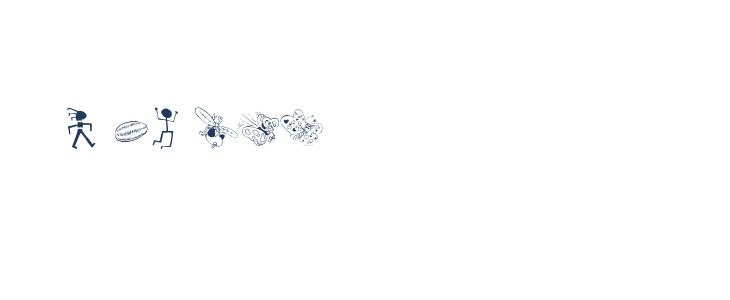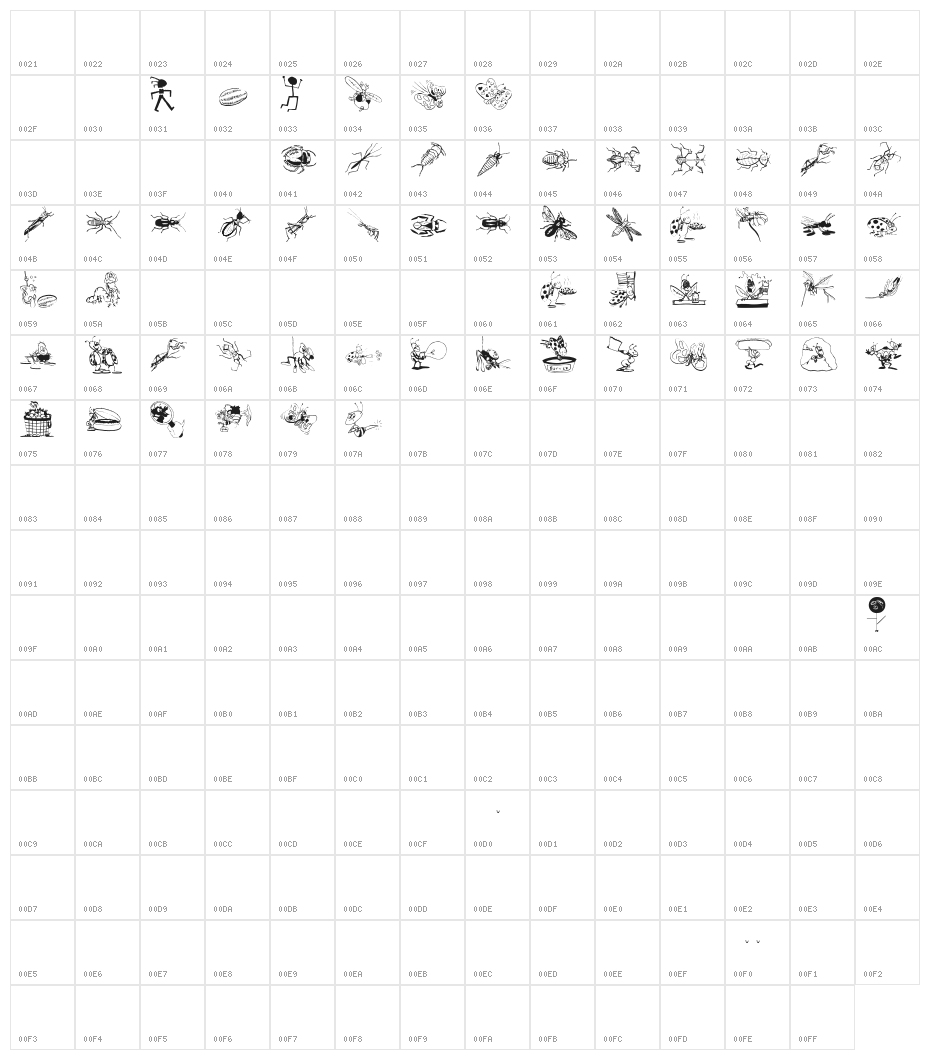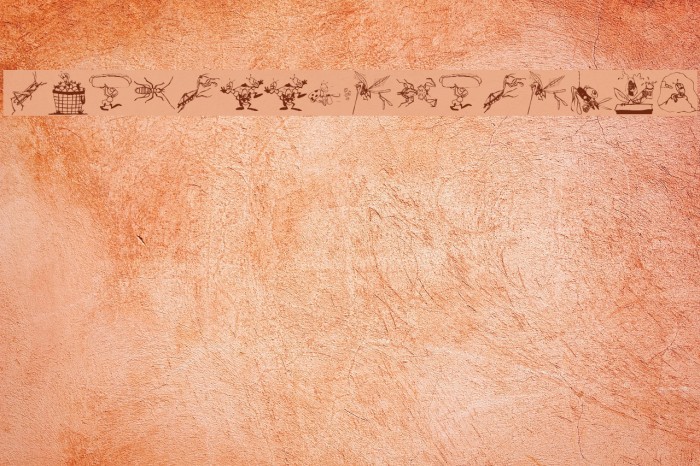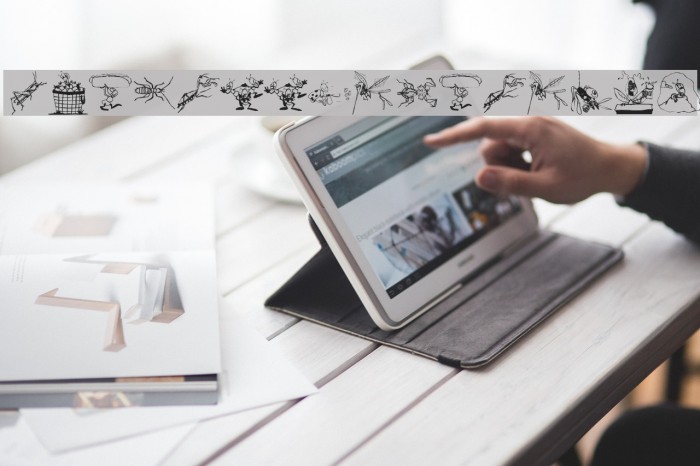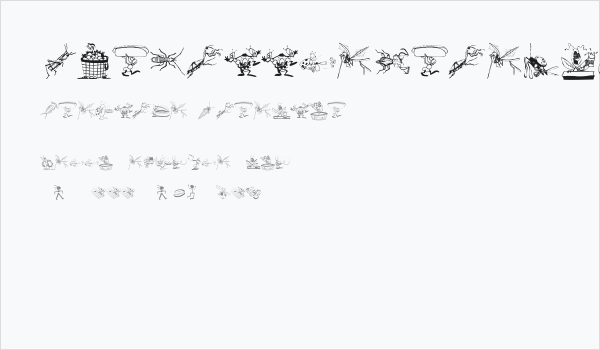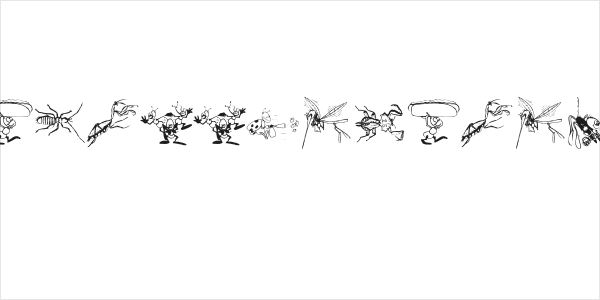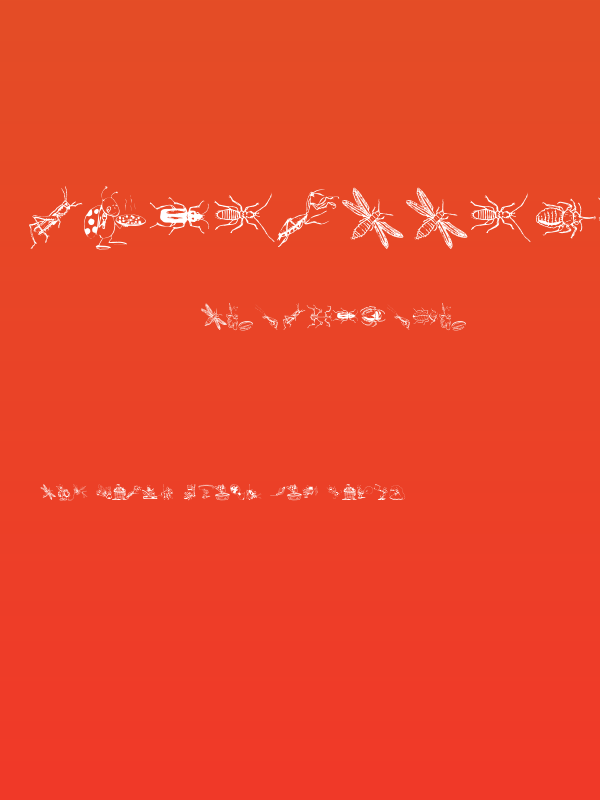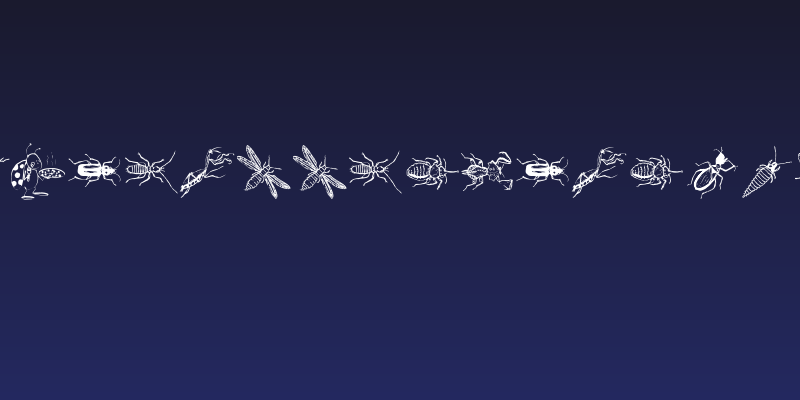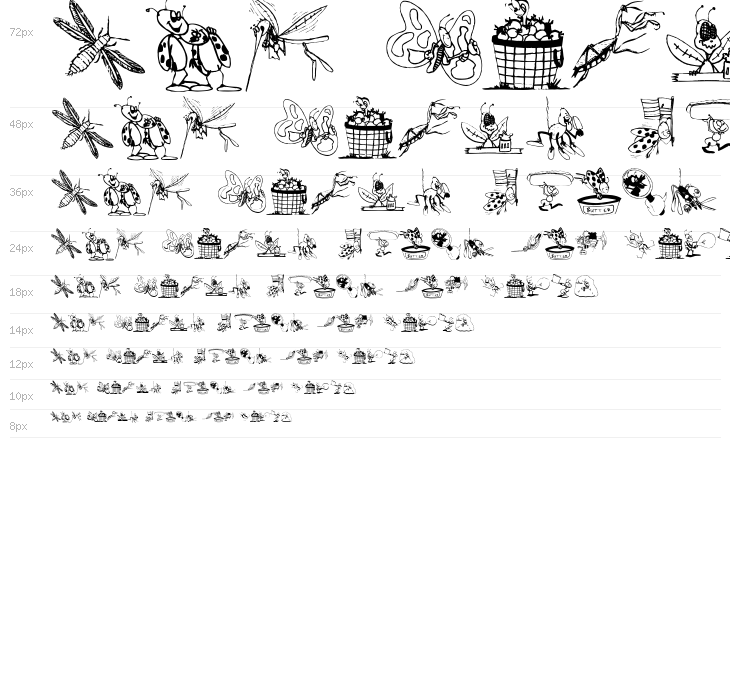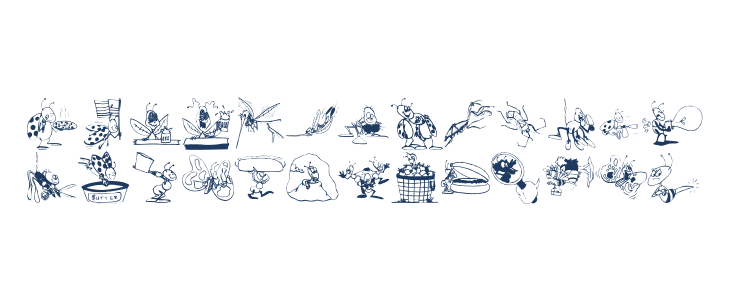
OurLittleFriends Font
OurLittleFriends Description
A whimsical, decorative dingbat font featuring a variety of hand-drawn cartoon insects and bugs, each glyph depicting a unique character or scene with playful and humorous details.
| Overall Style | Decorative, Whimsical, Playful |
| Use Case | Illustrative accents, icons, decorative elements |
| Proposed Projects | ChildrenΓ’β¬β’s books, educational materials, party invitations, scrapbooking, themed posters, playful branding. |